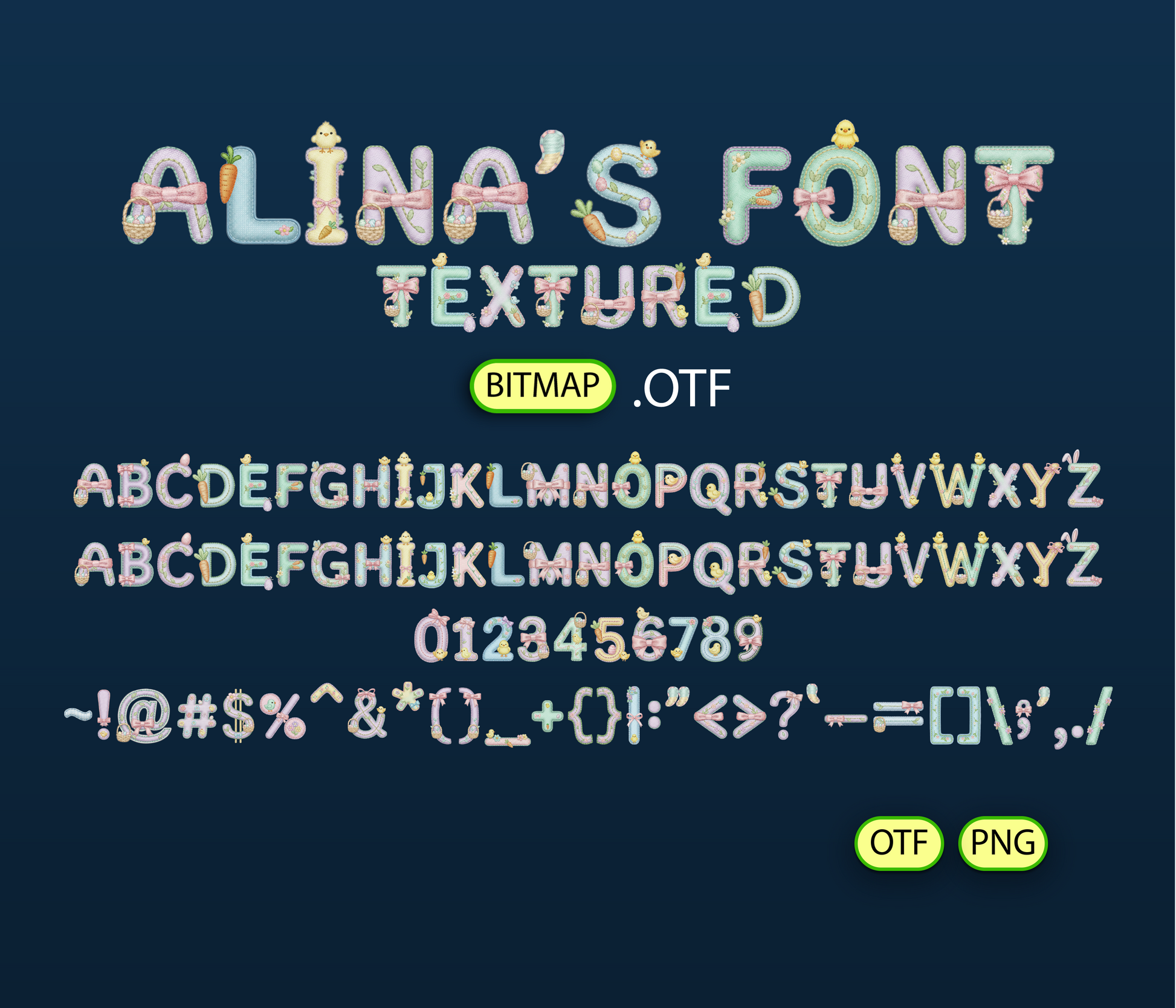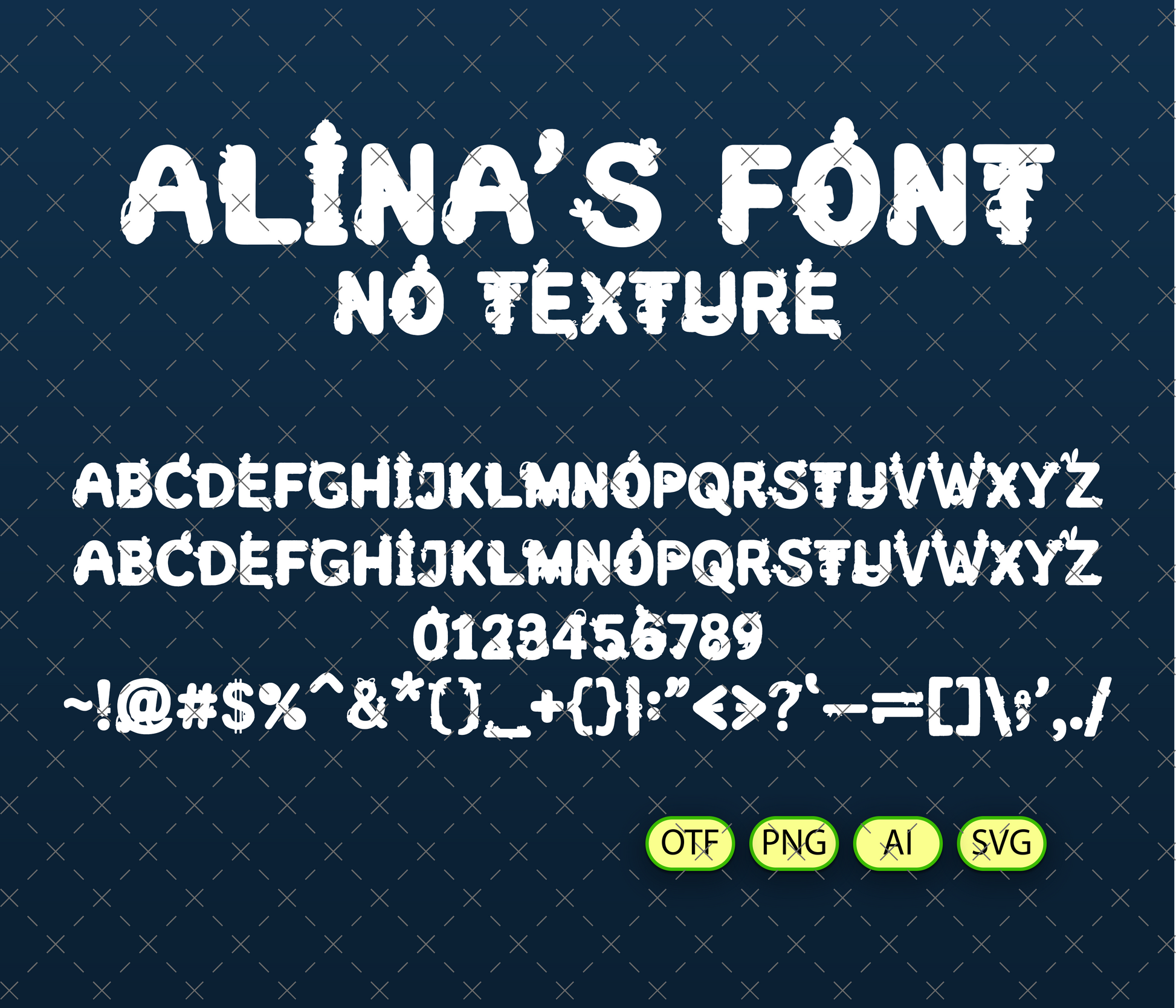
Stitch Easter Font Textured
Step into the charming world of festive needle-and-thread celebration with our Stitch Easter Font Textured, capturing the essence of embroidered elegance and springtime holiday mystique. Perfect for holiday enthusiasts, themed event planners, content creators, and creative professionals, this font brings the bold, timeless spirit of handcrafted Easter stories to your projects. Create eye-catching invitations, merchandise, or digital content with the dramatic energy of blooming seasonal festivity narratives.
Charming Typography for Seasonal Design & Holiday Projects
Our Stitch Easter Font Textured features delightful, intricately styled letterforms with woven thread textures reflecting the world of springtime gatherings and festive basket settings.
- Event Promotions: Craft delightful invitations, posters, and banners for Easter celebrations, spring festivals, and gatherings that capture the spirit of seasonal holiday entertainment
- Merchandise Design: Perfect for t-shirts, posters, stickers, and accessories that showcase the whimsical aesthetic of Easter stitch culture themes
- Digital Media: Brighten websites, blogs, and social media with cheerful headers and graphics that radiate the warmth of springtime holiday magic
- Creative Content: Sprinkle genuine charm into seasonal artwork, educational designs, and creative projects inspired by beloved Easter basket tales
- Personal Projects: Bring festive energy to scrapbooking, DIY crafts, and home decor inspired by the world of lovable Easter bunny characters
Our font celebrates the world of handcrafted holiday stories and springtime Easter discovery, empowering your projects with its bold and timeless spirit. Whether crafting seasonal materials, designing themed products, or adding a festive touch to personal projects, this font communicates the vibrant essence of Easter stitched entertainment. Ready to weave holiday mystique into your creations? This font is your perfect companion for eye-catching, impactful design.